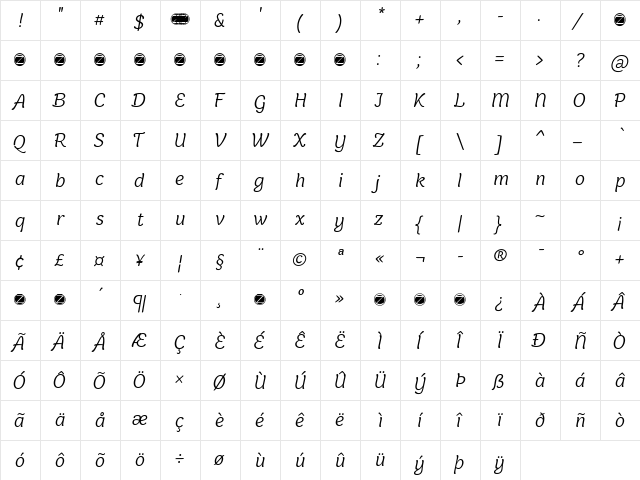
Holden Trial Light Italic Font Preview
Holden Trial Light Italic
Holden Trial Light Italic Font Details
| Style | Light Italic |
| Foundry | Zetafonts |
| Designer | Cosimo Lorenzo Pancini |
Design Context for Holden Trial Typeface
Holden Trial is a composed and adaptable typeface that performs quietly and consistently across a wide range of design contexts. The dynamic lean of this cut emphasises speed and emphasis in any layout. Its slender proportions lend an understated elegance to any composition.